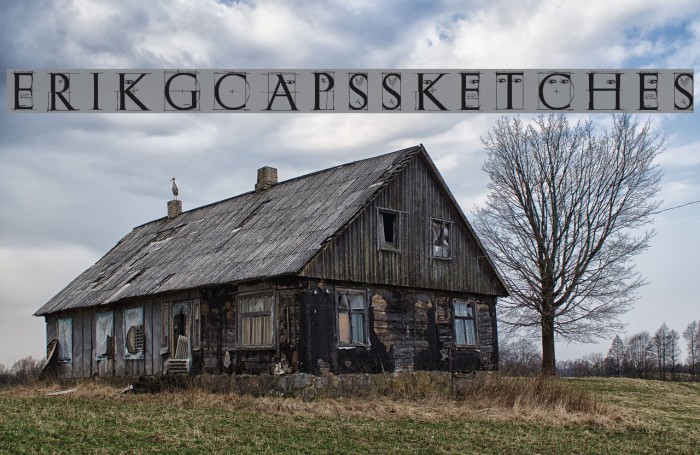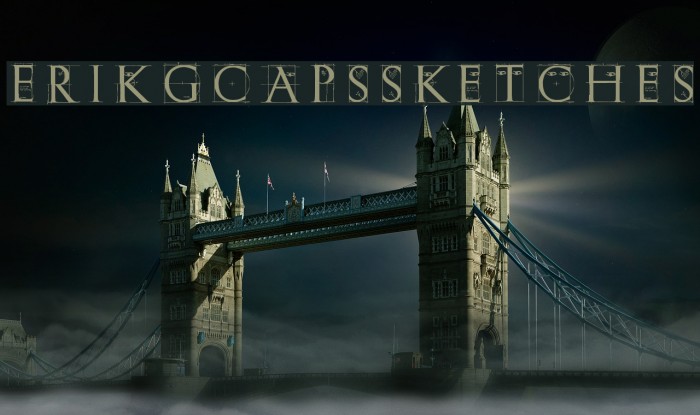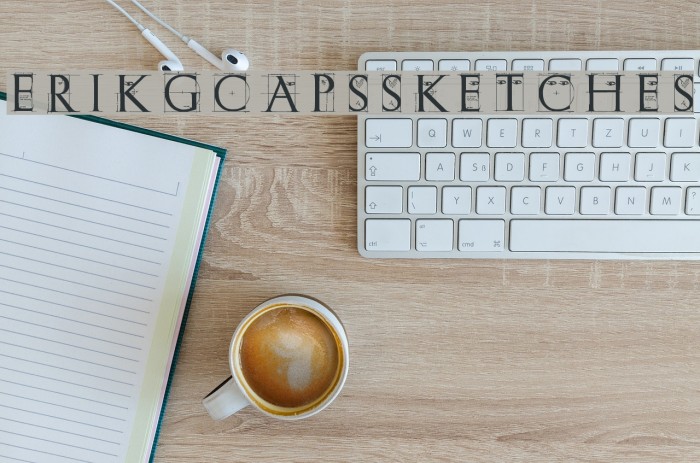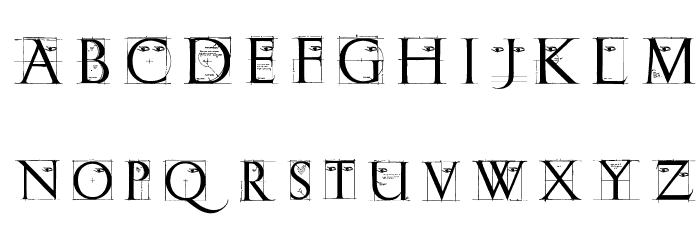
ErikGCapsSketches Font
This font features a unique and artistic design, characterized by its sketch-like appearance and intricate detailing. Each letter is enclosed within a faint grid, giving it a blueprint or architectural feel. The strokes are varied, with some parts being thicker and others thinner, creating a dynamic and visually engaging contrast. The serifs are pronounced, adding a touch of elegance and sophistication. The overall style is reminiscent of hand-drawn sketches, making it ideal for creative and artistic projects. The font's distinctive look makes it stand out, perfect for use in design work that requires a touch of originality and flair.
| Overall Style | Artistic, Sketch-like, Decorative |
| Use Case | Logos, Headlines, Creative Projects |
| Proposed Projects | Ideal for artistic projects, architectural designs, creative branding, and unique invitations. |